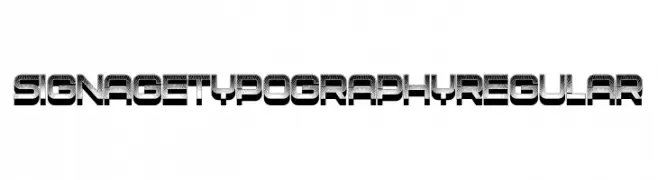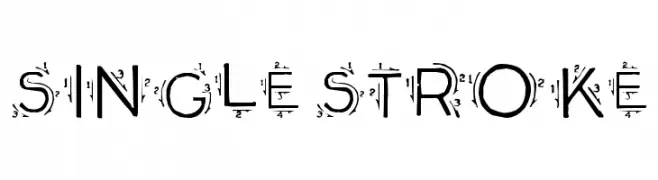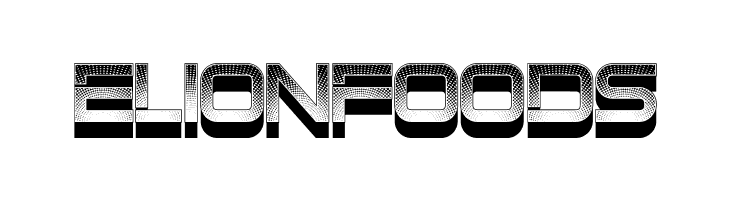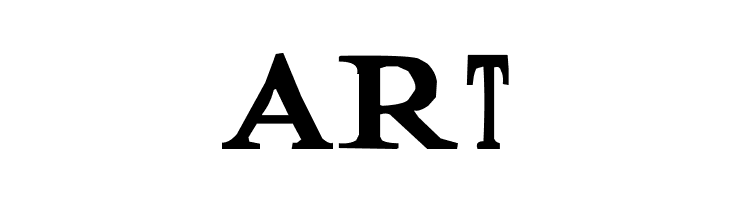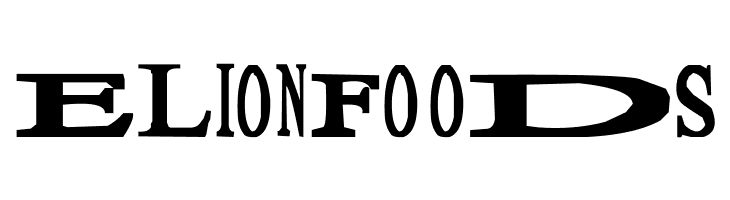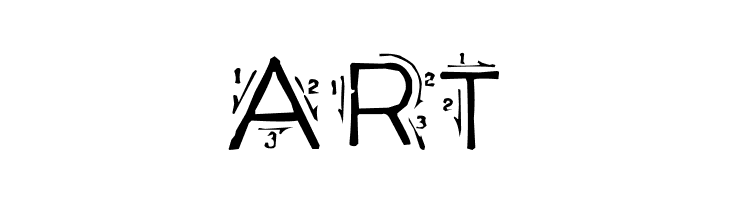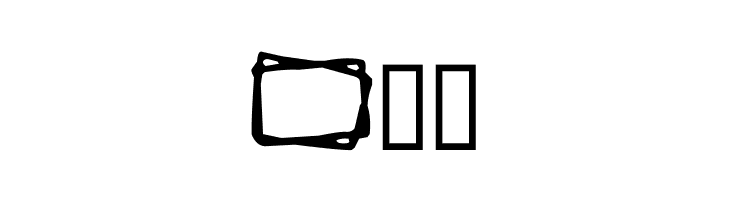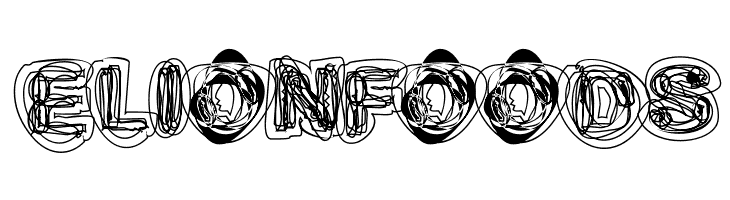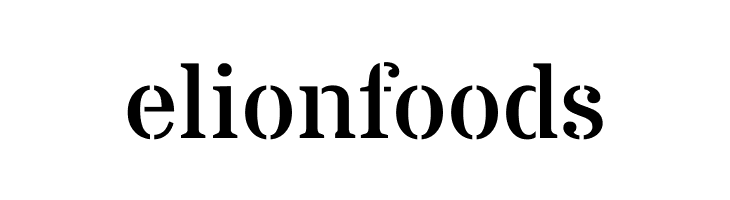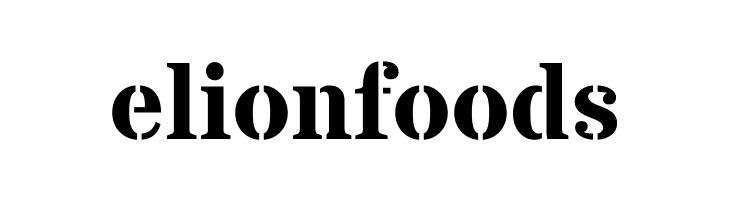
A bold, angular font with a modern twist on Gothic style, featuring high contrast and sharp edges.
A bold, decorative font with a 3D effect and intricate detailing.
A decorative font with intricate line work and a hand-drawn appearance.
A bold, Gothic-style font with intricate, medieval-inspired detailing.
A sketch-like, hand-drawn font with overlapping lines and a playful style.
A bold, vintage-style font with exaggerated serifs and dynamic strokes.
A bold, geometric font with playful circular cutouts and a modern art deco style.
A playful, hand-drawn style with abstract box shapes.
A bold, stencil-style font with high contrast and geometric shapes.
A bold stencil font with sharp edges and a modern, industrial aesthetic.